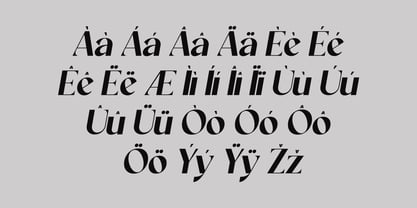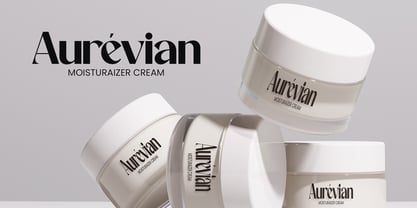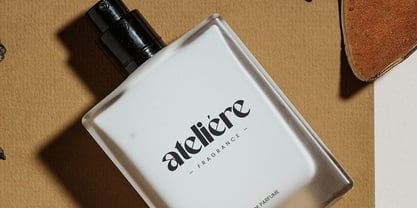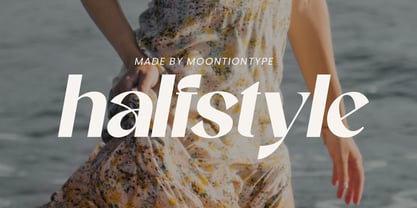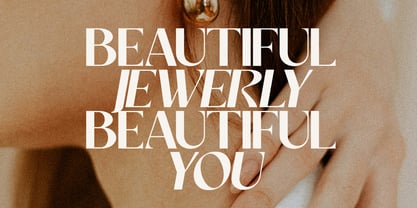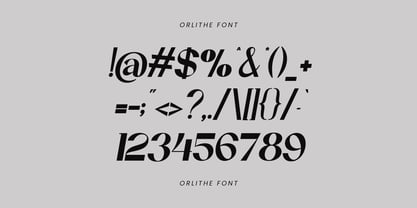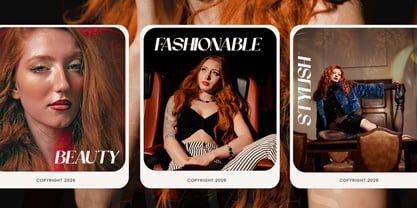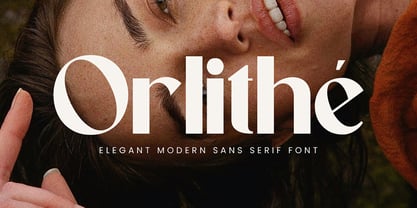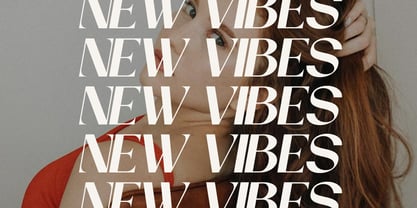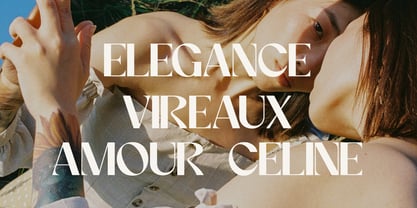
Orlithe
von Moontiontype
Die Schriftfamilie Orlithe wurde von Dinda Nur Dwiyanti entworfen und von Moontiontype veröffentlicht. Orlithe enthält 1 Stile. Mehr über diese Familie
Orlithé is a refined and elegant modern sans serif font designed to bring sophistication and clarity to your creative projects. With its clean lines, smooth curves, and balanced proportions, Orlithé delivers a contemporary aesthetic that feels both luxurious and timeless. Carefully crafted with high attention to detail, this font features stylish letterforms, subtle contrast, and beautifully shaped characters that stand out in both large headlines and minimalist layouts. Its modern elegance makes it perfect for high-end branding and editorial design. Features: Uppercase Lowercase Numerals Punctuation Multilingual support Thank You Moontiontype
Designer: Dinda Nur Dwiyanti
Foundry: Moontiontype